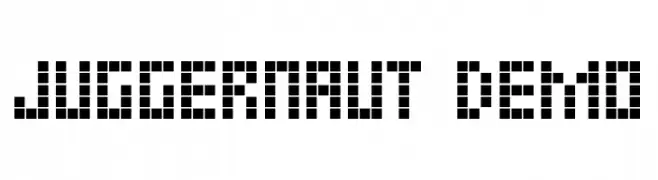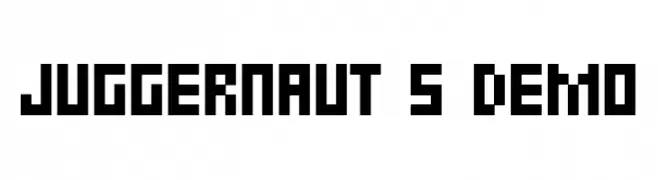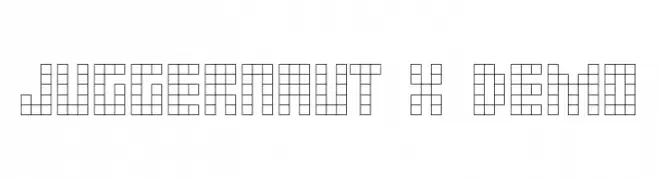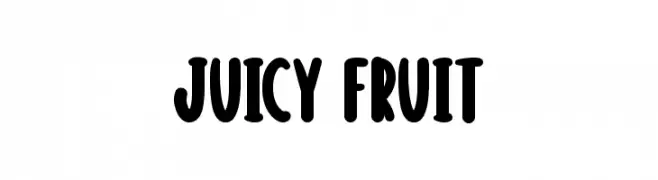
• JonasMajuscles-Bold2007
A bold, playful font with a cartoonish, dynamic style.
• Jonny Mack
A casual, handwritten font with a playful and spontaneous style.
• Joskus Ei
( Fonts by www.junkohanhero.com )
A bold, expressive brush script font with dynamic, hand-drawn strokes.
• JS Kang
• JUGGERNAUT demo
A bold, pixelated font with a retro digital aesthetic.
• JUGGERNAUT s demo
A bold, pixelated font with a retro video game aesthetic.
• JUGGERNAUT x demo
A grid-based, pixelated font with a retro digital aesthetic.
• Juicy Fruit
( Fonts by Md Shohail Bhuian )
A playful, bold font with rounded, thick strokes and a friendly appearance.
• JulesHand
• Julya
A dynamic and elegant script font with high contrast and flowing letterforms.